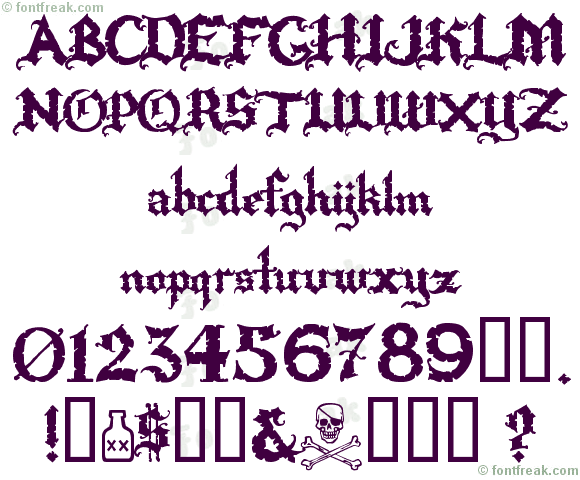
Rapscallion
About Rapscallion
Rapscallion is a striking display font designed by Cap'n Ryan, embodying a pirate-inspired aesthetic that draws influence from Melbourne, Australia's vibrant folk punk scene. This freeware typeface features a unique blend of decorative elements and a bold, adventurous spirit, making it ideal for various creative projects. With its irregular stroke weight and playful contrasts, Rapscallion captures attention while maintaining a sense of whimsy. The character spacing is thoughtfully designed, ensuring readability even at larger sizes, best showcased at 48 pt or higher, where its impact truly shines.
This font is perfect for a range of use cases. It can elevate wedding invitations with a touch of charm, create eye-catching movie posters that demand attention, and lend a playful vibe to restaurant menus. Additionally, Rapscallion is well-suited for merchandise branding, offering a unique flair that resonates with audiences who appreciate a sense of adventure and fun. Graphic designers, small business owners, and content creators will find this font to be an invaluable asset in their toolkit, adding a distinctive character to their work.